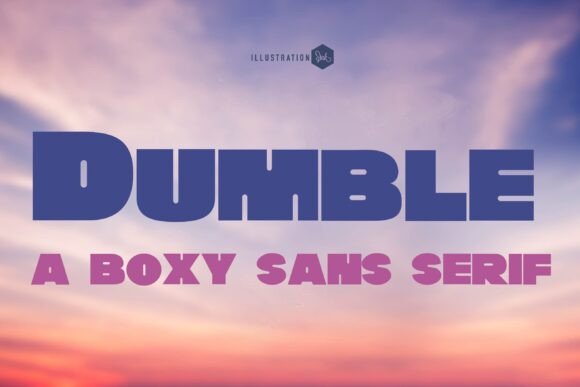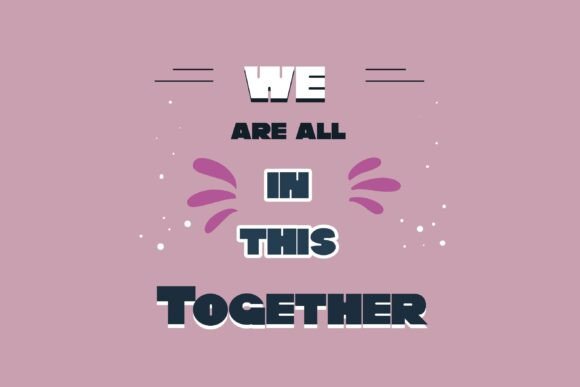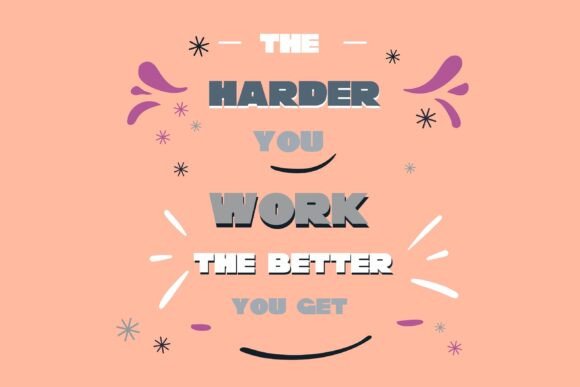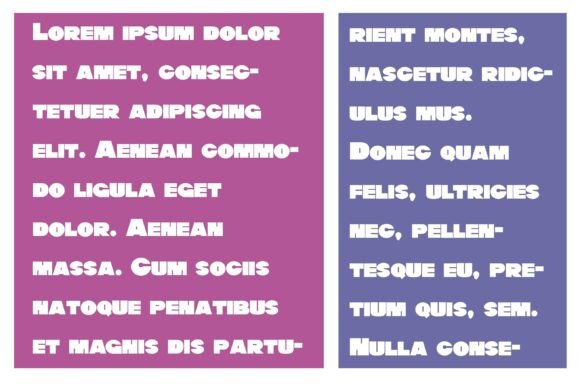
Dumble Font
About the Dumble Font
We are excited to introduce Dumble Font, a must-have typeface for any serious designer. This hand-crafted sans serif font is a boxy font with big, chunky lettering that is great for titles, displays, posters and more.
Dumble Font’s bold, chunky style makes it ideal for headlines, short impactful statements, and branding applications requiring a strong visual presence. It excels in posters, signage, and packaging where readability at larger sizes is paramount. However, its boxy nature and relatively large x-height make it unsuitable for body text or UI elements where extended reading is required. Small sizes become difficult to decipher.
Consider pairing Dumble with a clean sans-serif like Open Sans for body text to provide contrast and enhance readability in multi-element designs. For a more playful feel, a script font like Pacifico could be used for secondary text elements. Avoid pairing it with other heavy or highly decorated fonts, which would create visual clutter.
Dumble Font projects a confident, almost rebellious personality. It’s perfect for brands that want to convey strength, individuality, and a modern aesthetic. Its handcrafted quality adds a touch of authenticity, making it a great choice for projects that need to feel both contemporary and genuine.